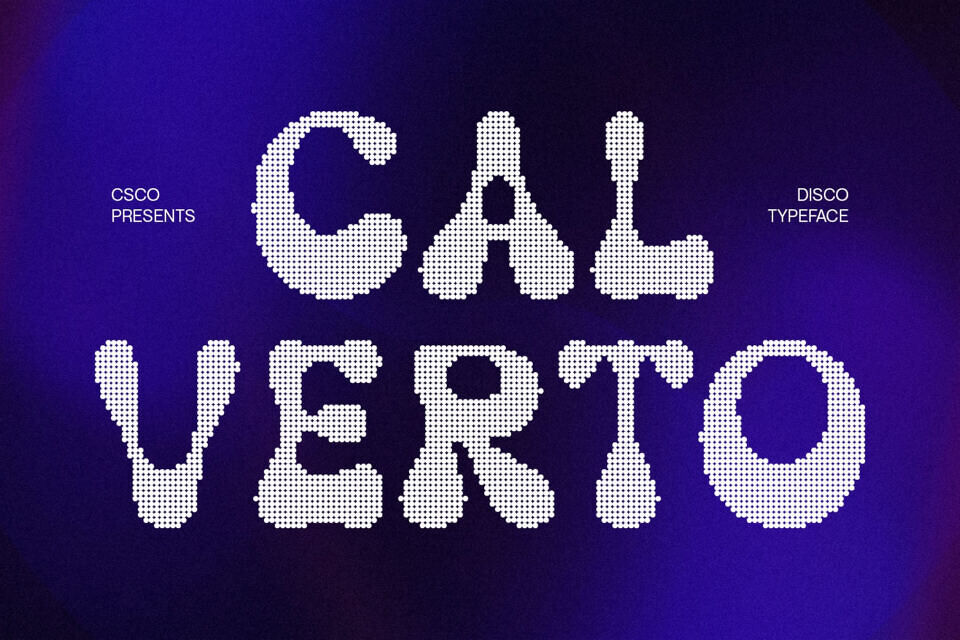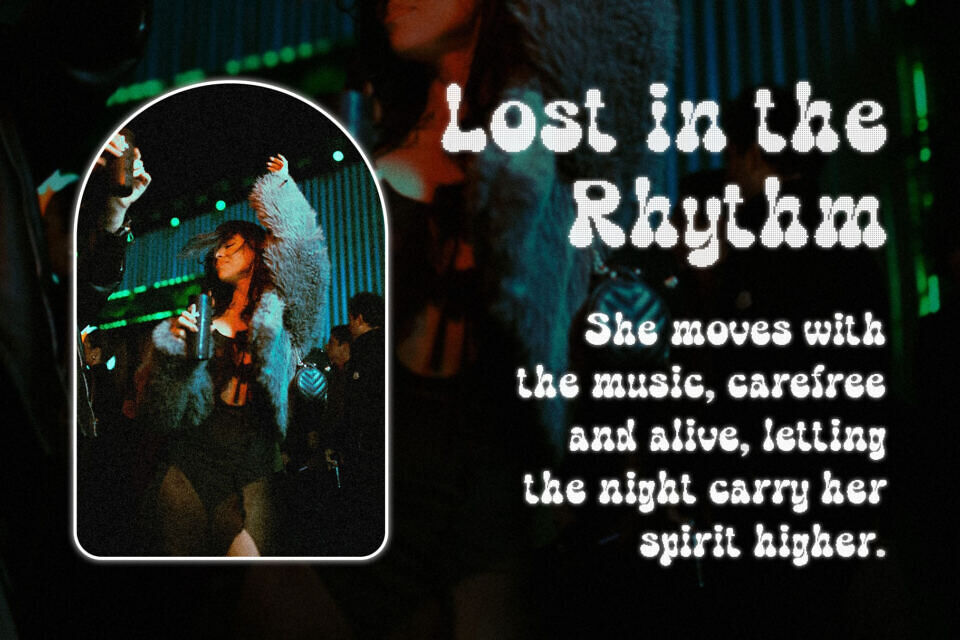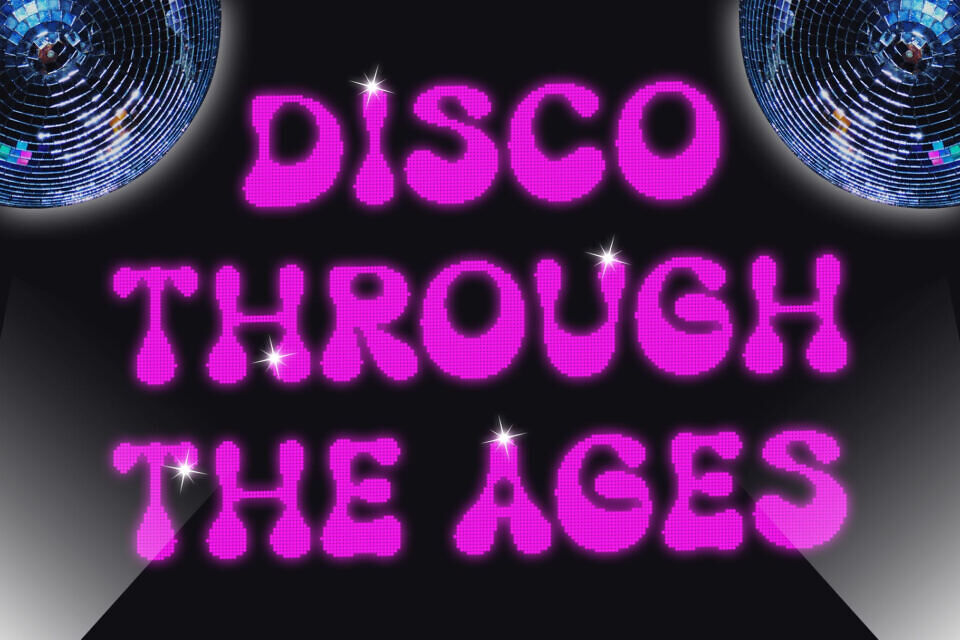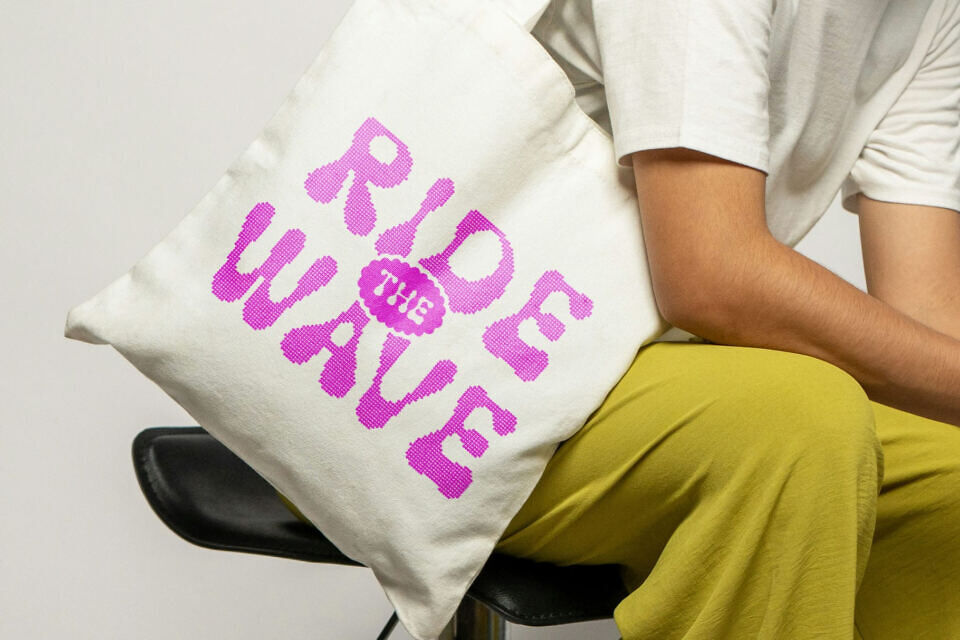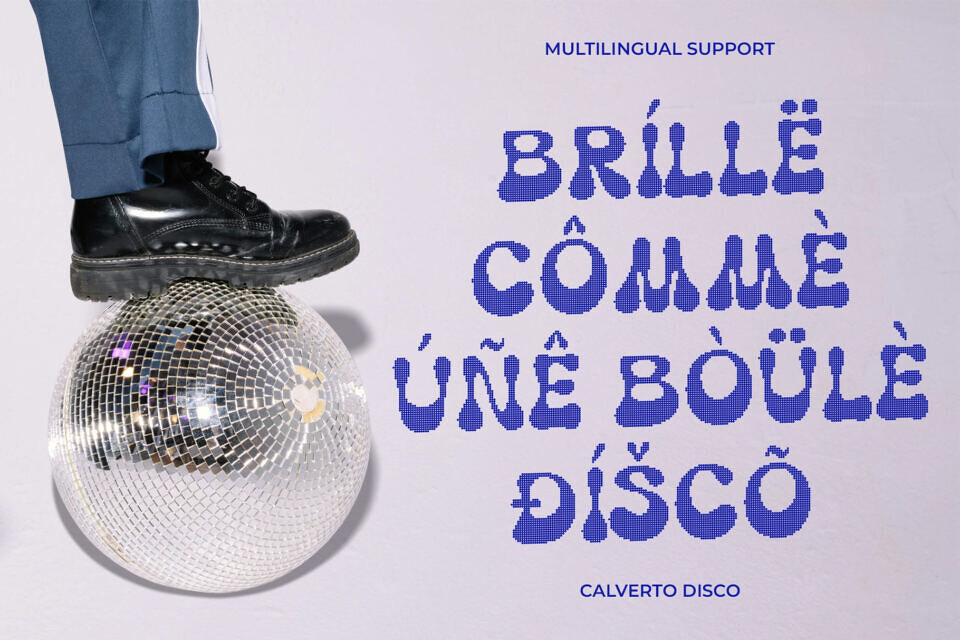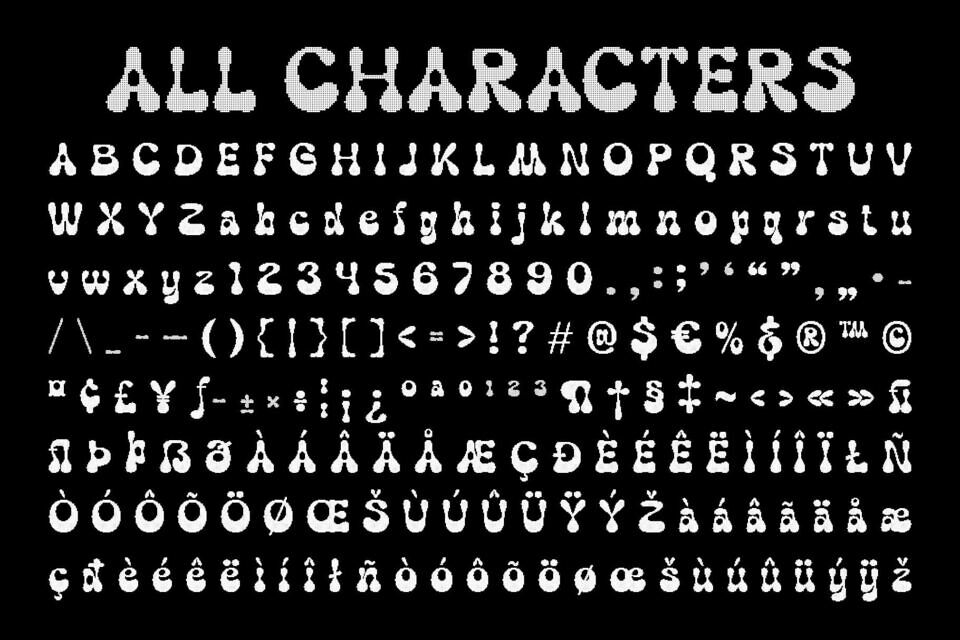
Calverto Disco Font draws inspiration from the stylish, decorative curves of the 1970s. Its retro, groovy letterforms create a playful and energetic vibe, making every design feel lively and full of character. The smooth curves and bold style give it a timeless, vintage appeal that instantly attracts attention.
A sparkling disco effect adds rhythm, glamour, and dynamic energy to each character of this display font. This subtle yet striking detail creates a sense of motion, making your text appear alive and celebratory. The disco sparkle enhances the retro aesthetic, giving designs a fun, glamorous touch.